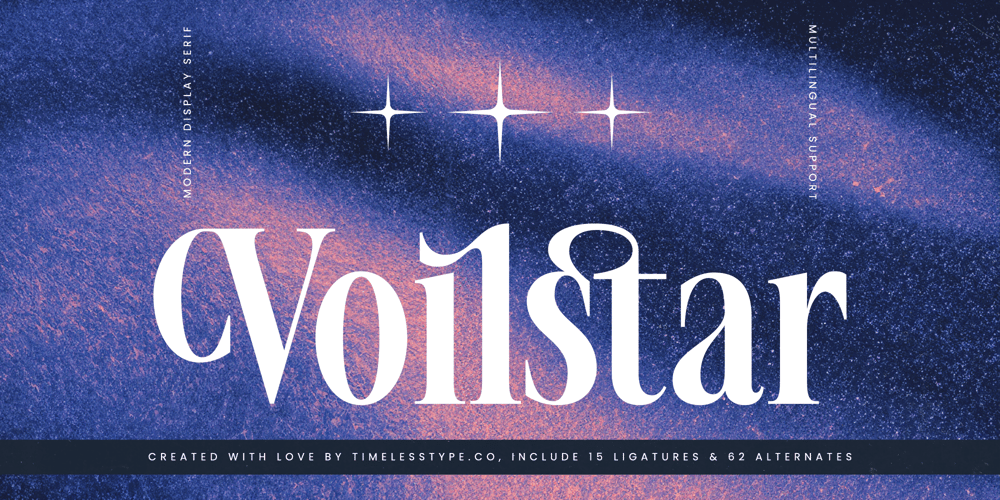
Voilstar Font Family was designed by Heru Utama Putra and published by Timelesstype Studio. Voilstar contains 2 styles and family package options. Voilstar – Modern Display Serif , from Timelesstype , Suitable for any projects such as: logos, branding projects, homeware designs, product packaging, mugs, quotes, posters, shopping bags, t-shirts, book covers, name card, invitation cards, greeting cards, label, photography, watermark, special events, and all your other luxury and beautiful projects that need a Luxury Serif taste.